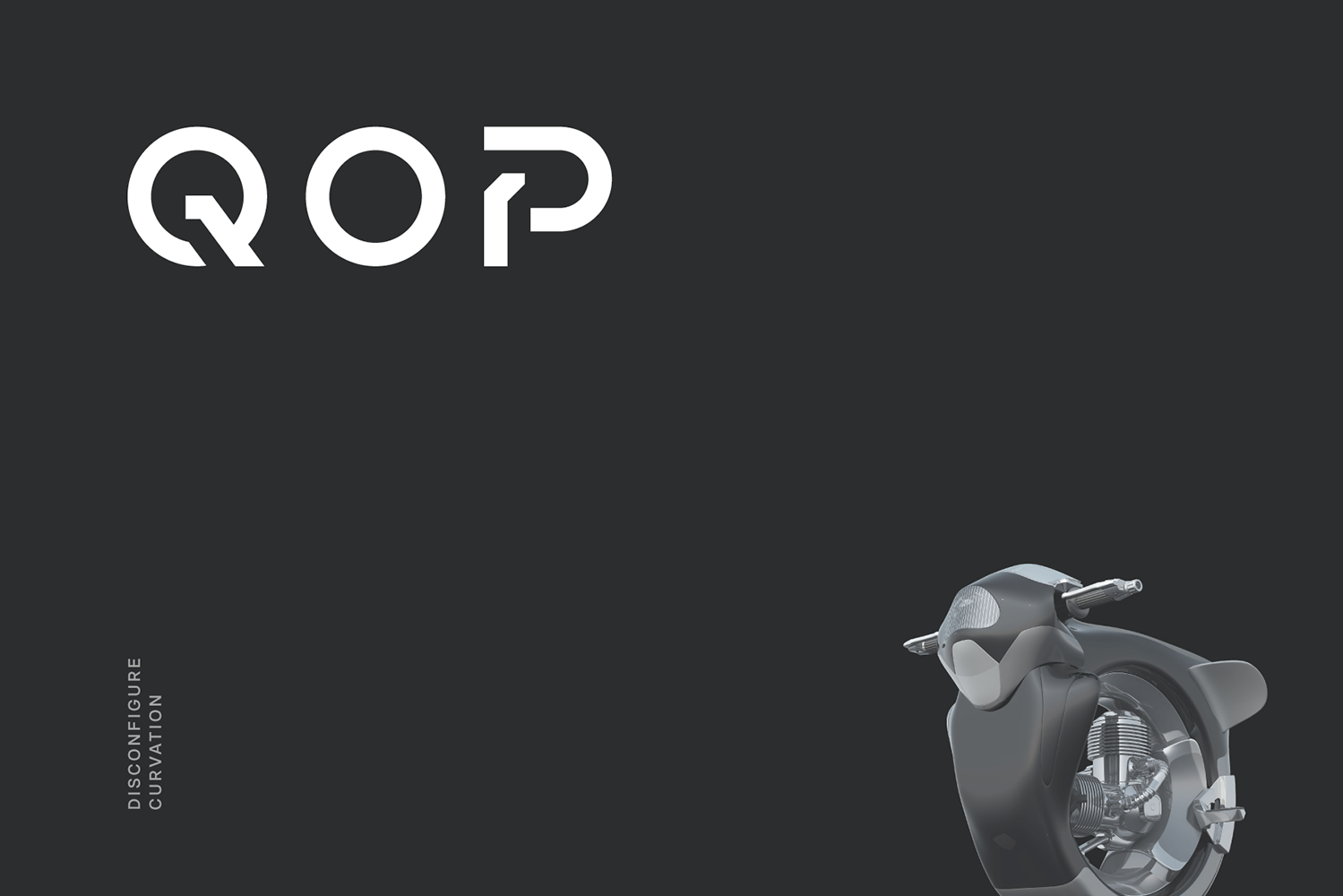
Qop Futuristic Tech Scifi Font
Qop is a disconfigure curvation tech sans apt for headline, editorial, branding, packaging, printed materials and typographic applications. Ultra modern character blend with simplicity of smooth rigid curves, subliminal contour and monoline interpretation introduced futurism sensuality through restraint form. 150+ glyphs with ligatures and fractions provided in opentype .otf and .woff format